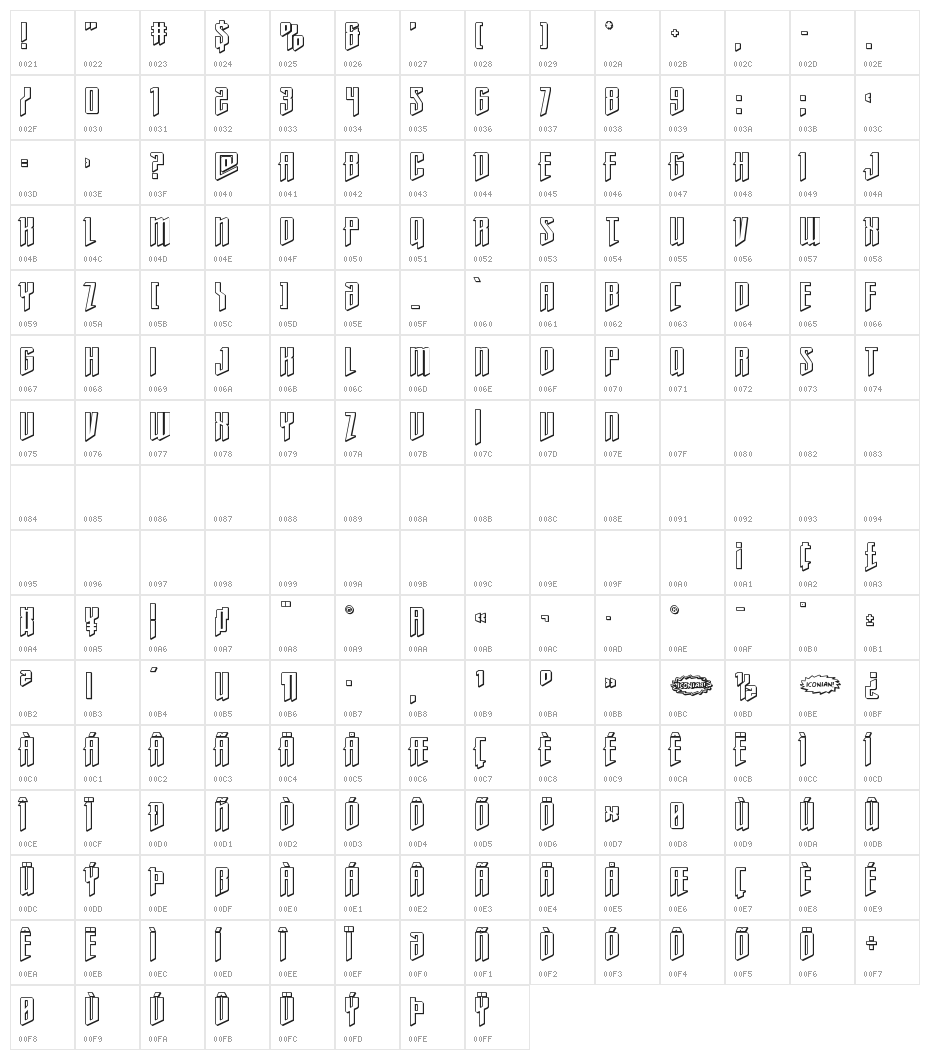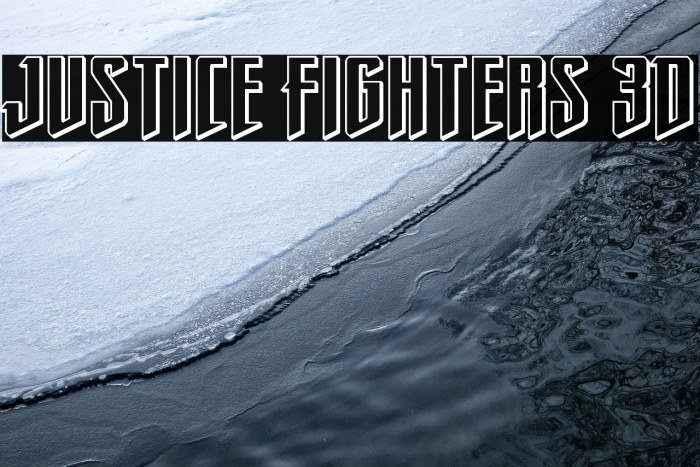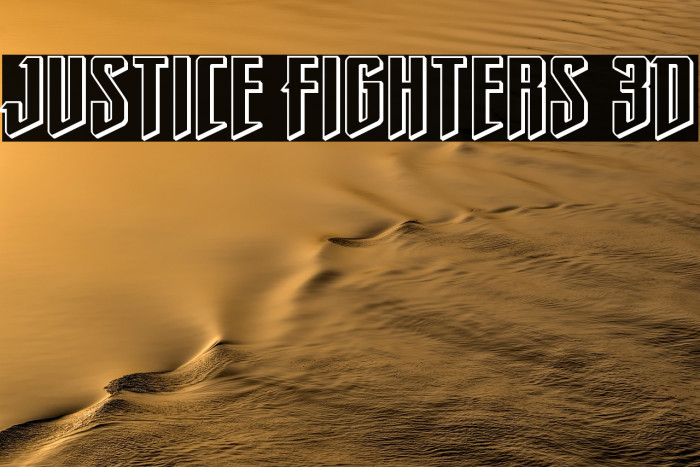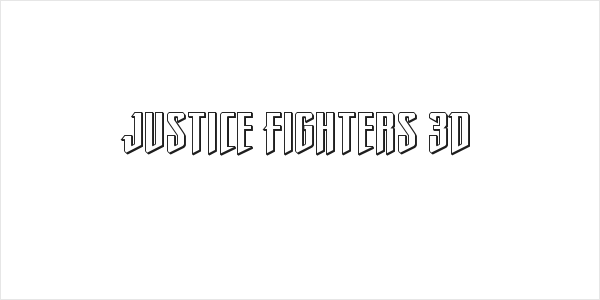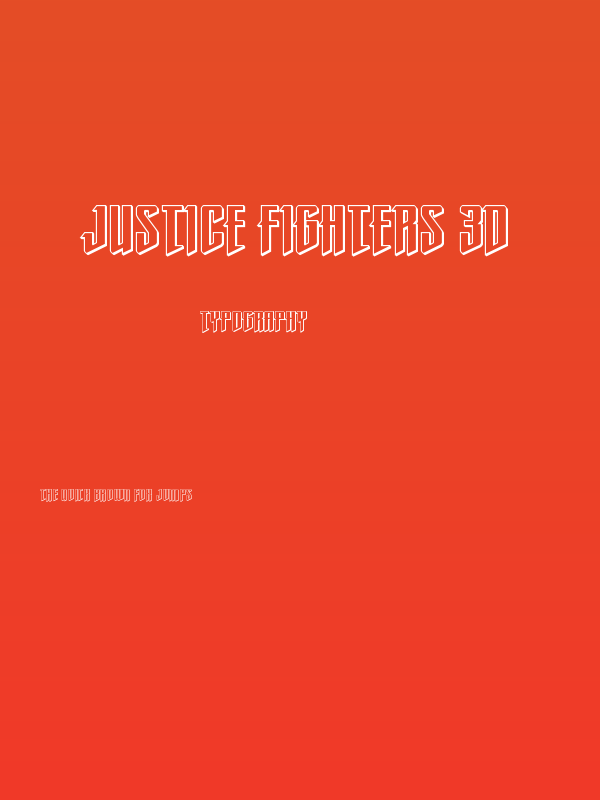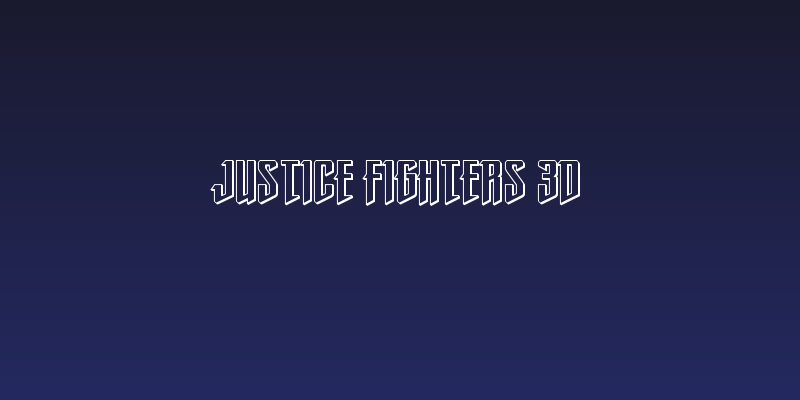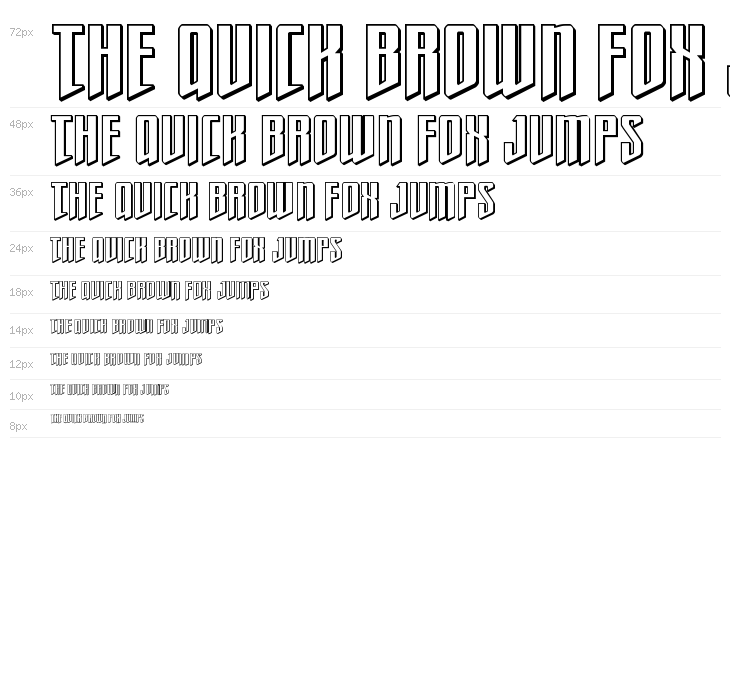
Justice Fighters 3D Font
Justice Fighters 3D Description
This font features a bold, three-dimensional design with a strong, angular presence. The letters are outlined with a thick black border, giving them a shadowed effect that enhances their 3D appearance. The uppercase and lowercase letters maintain a consistent style, with sharp edges and a geometric structure. The numbers and special characters follow the same design principles, ensuring uniformity across all glyphs. This font is highly decorative and eye-catching, making it ideal for projects that require a striking visual impact.
| Proposed Projects | Ideal for video game titles, movie posters, comic book covers, and any project needing a dynamic, impactful typeface. |